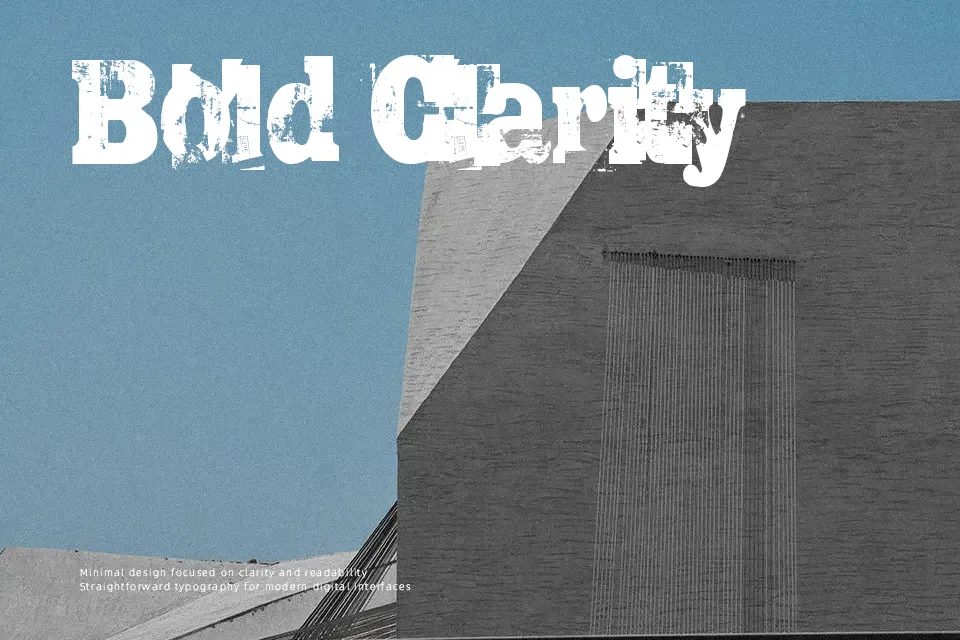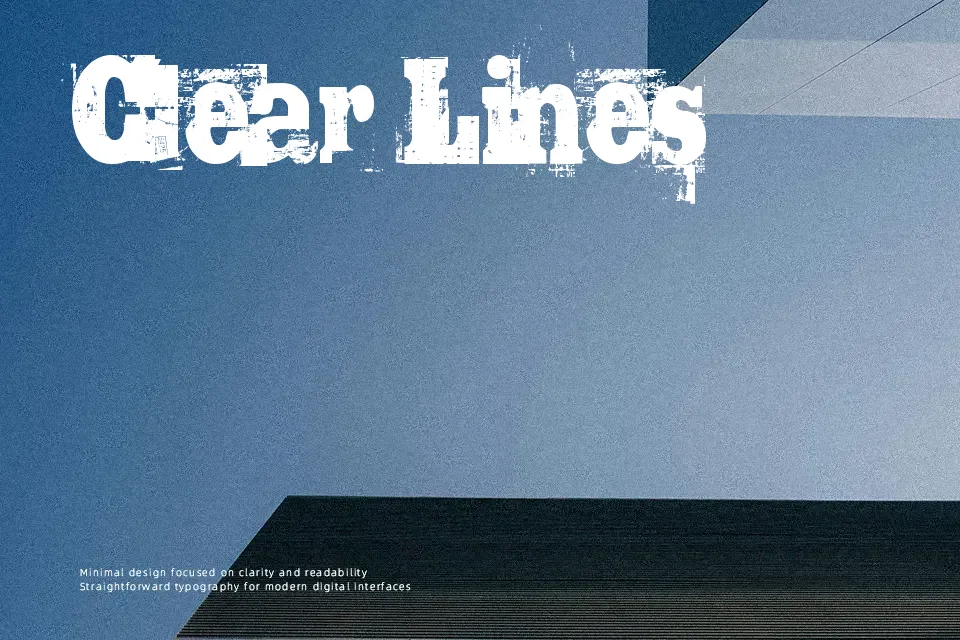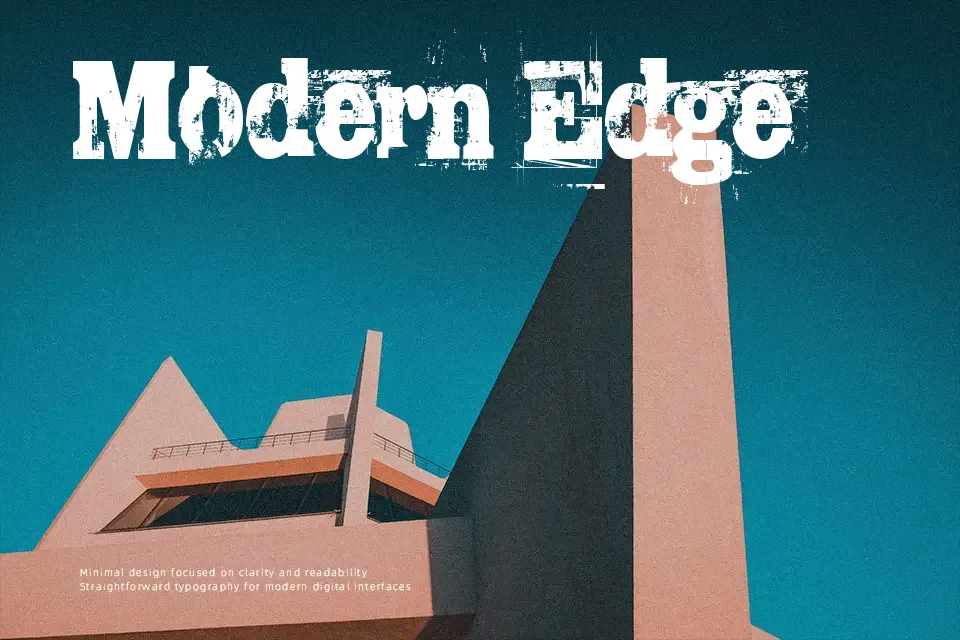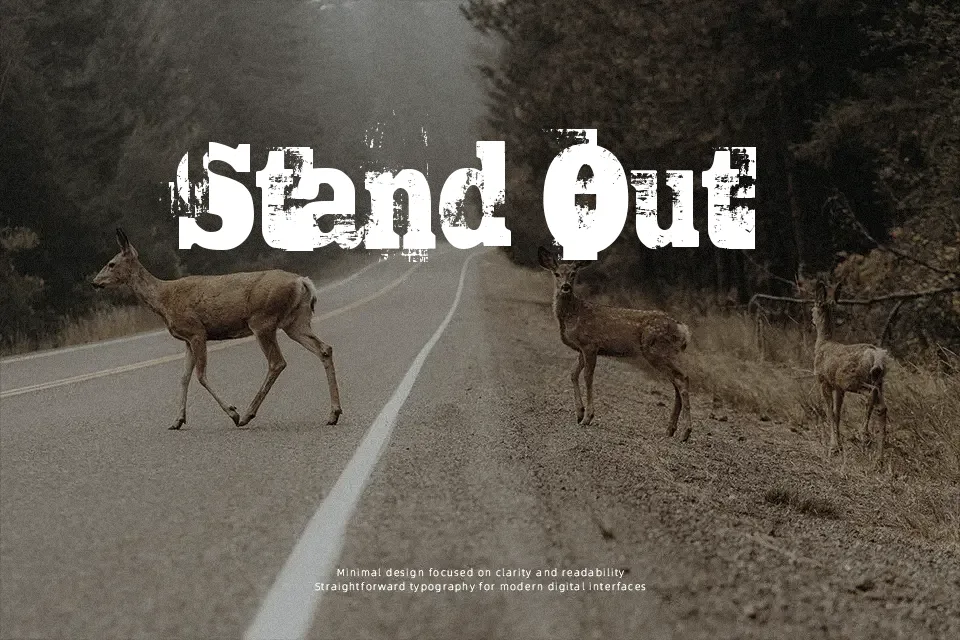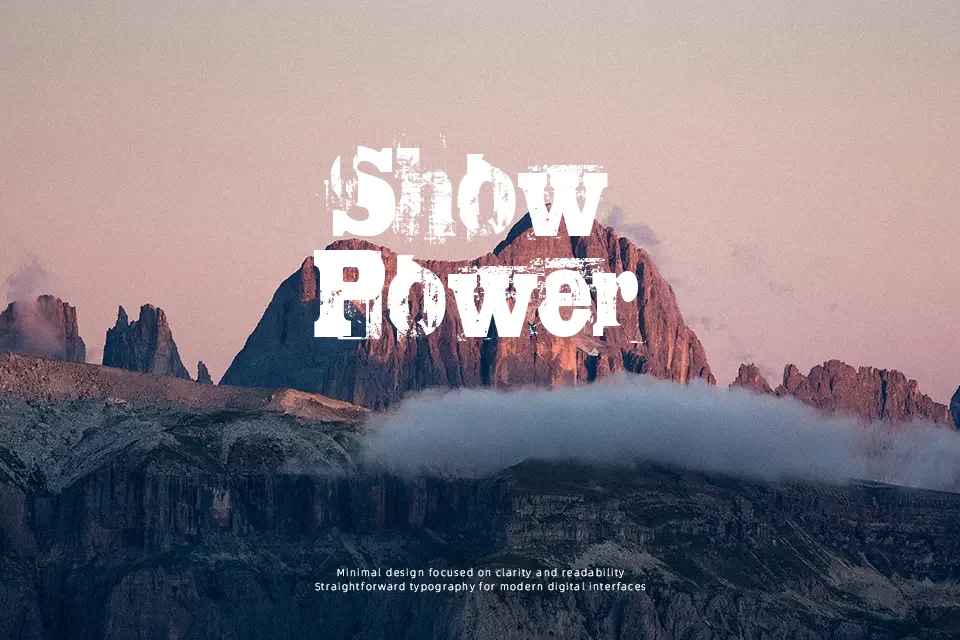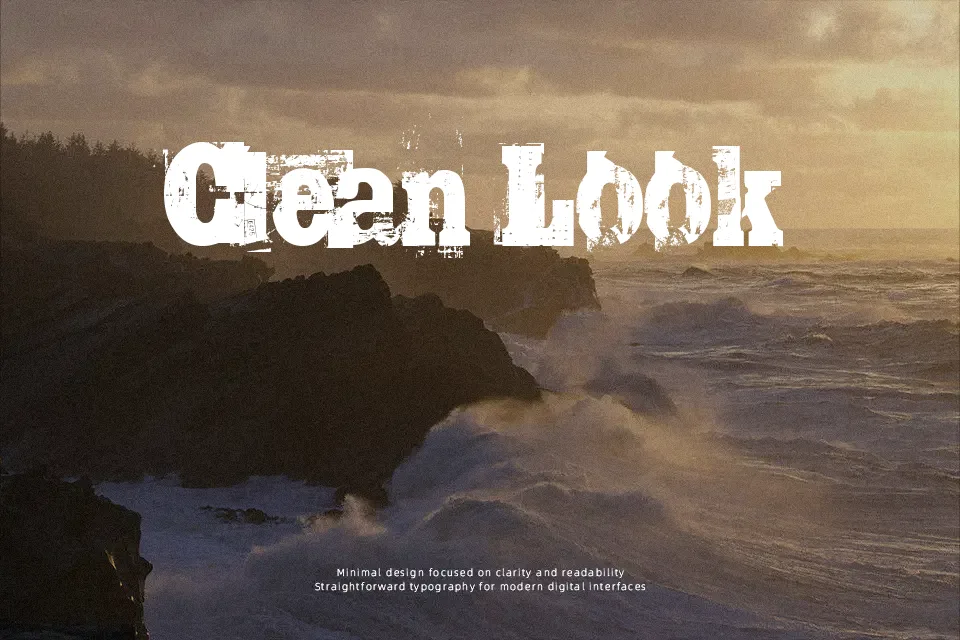
Trashed Font
Trashed Font exhibits a decaying typographic anatomy characterized by deeply corroded strokes, jagged contours, and fragmented slab-serif foundations. Each glyph displays substantial weathering, featuring irregular cutouts and speckled erosion that disrupt solid letterforms. Tight horizontal spacing and sturdy proportions lend the typeface an imposing presence in music merchandise, video game titles, and rebellious editorial covers. While the heavy silhouette ensures striking readability in oversized headings, the dense distress patterns severely compromise legibility at smaller scales. Consequently, this design remains unsuitable for continuous body copy or fine print captions where clean character differentiation is required.
Best For: hard rock album packaging, heavy metal festival banners, horror film title cards, skateboarding apparel graphics
Not Ideal For: extended book body text, corporate annual reports, mobile app navigation labels, dense spreadsheet data
Perfect for gaming, headline, and music, with a dark and decorative style.